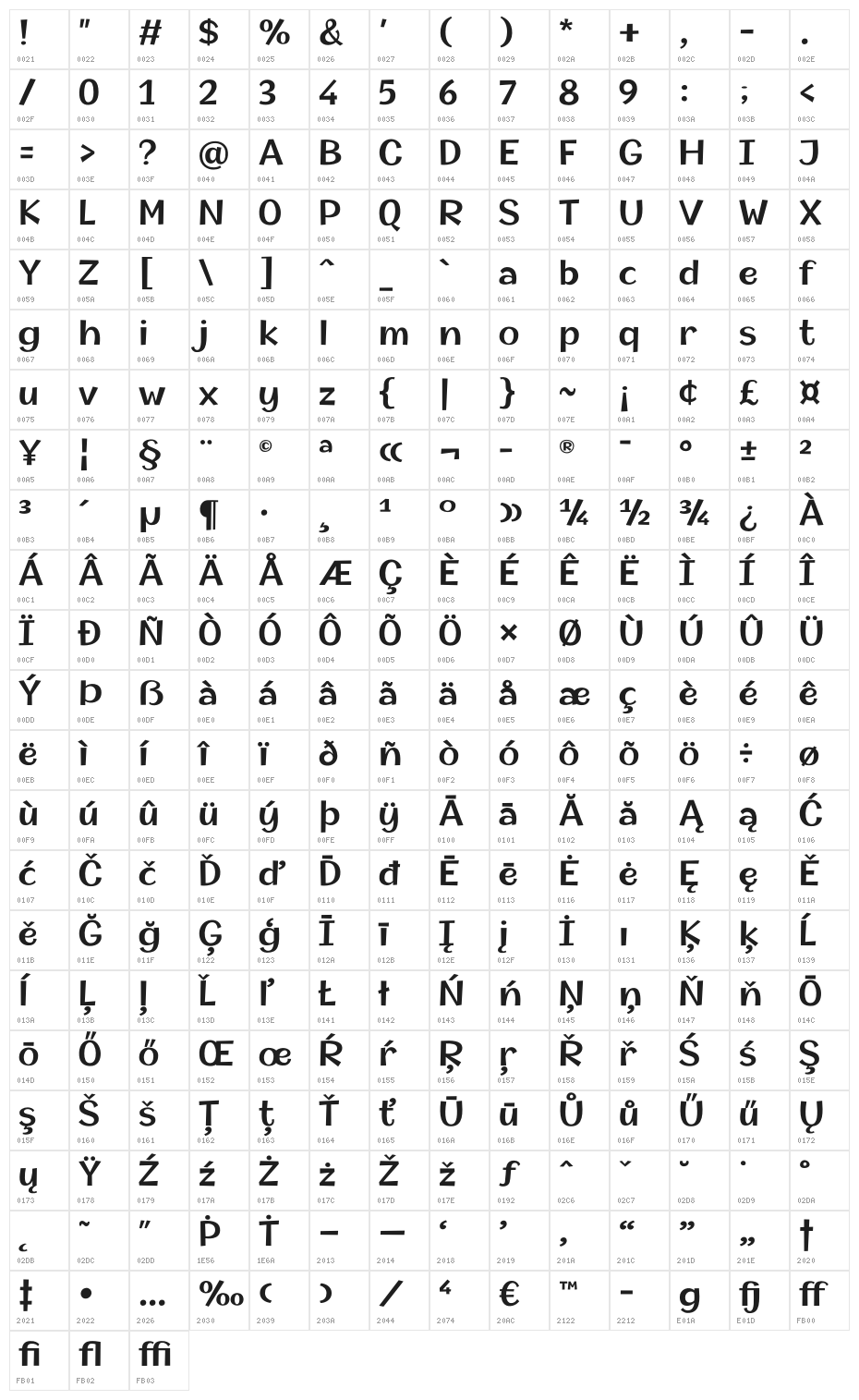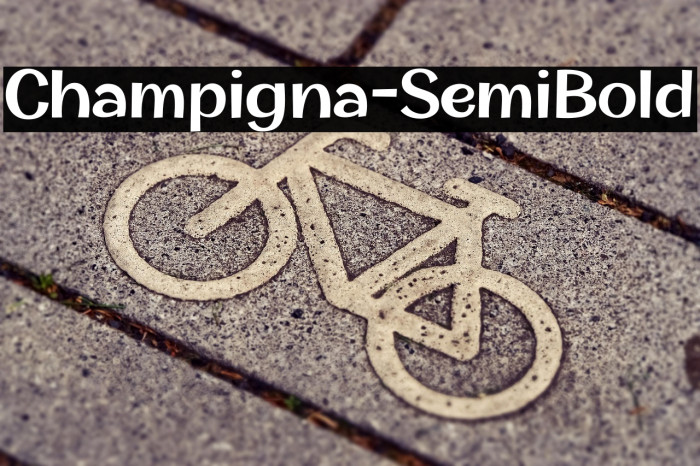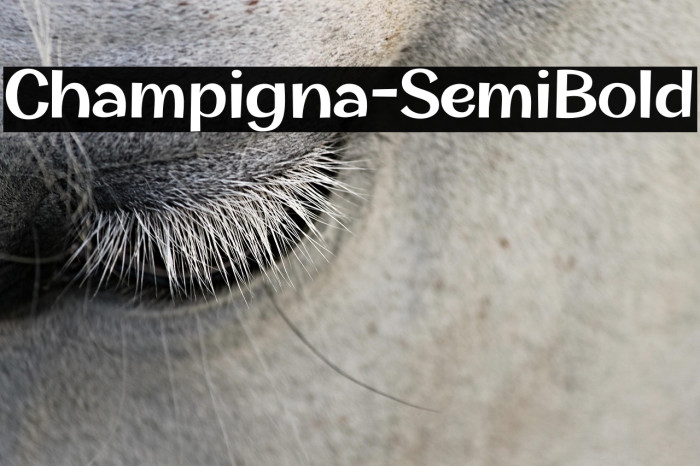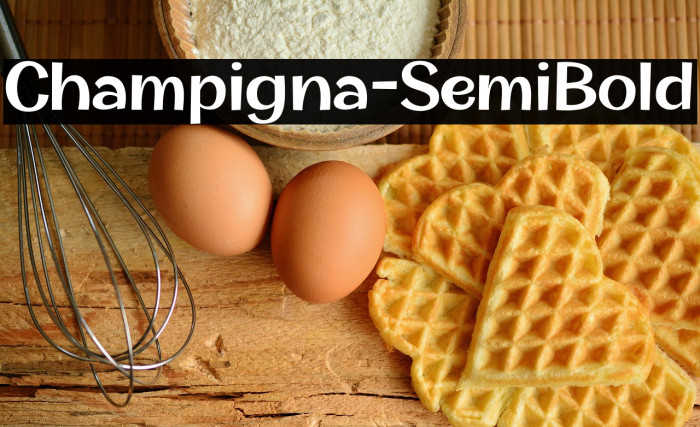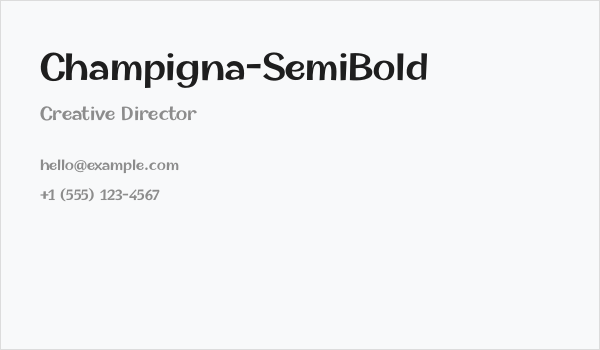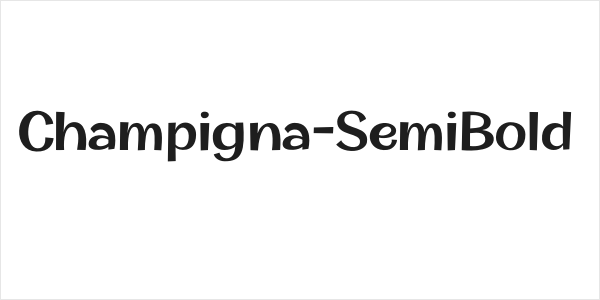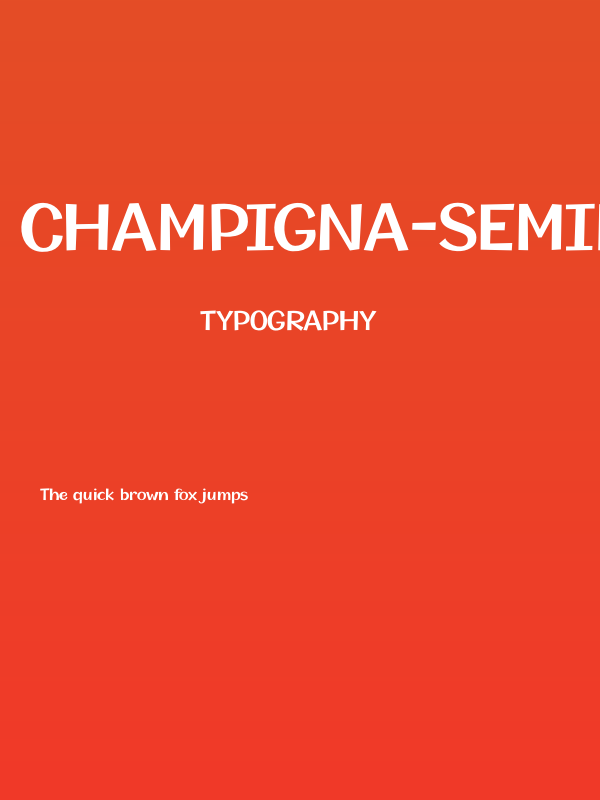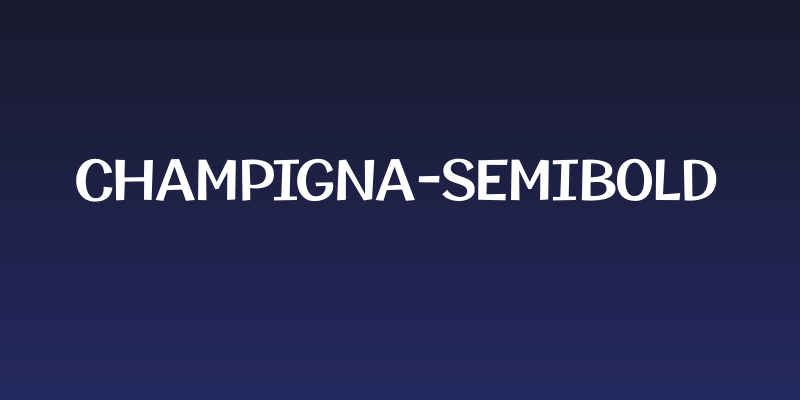
Champigna-SemiBold Font
Champigna-SemiBold Description
This font features a playful and dynamic style with a semi-bold weight, giving it a strong presence while maintaining a friendly and approachable appearance. The characters exhibit a slight curvature, adding a whimsical touch to the overall design. The uppercase letters are bold and slightly condensed, while the lowercase letters maintain a consistent flow with rounded edges. The numerals are clear and distinct, ensuring readability. Special characters are well-integrated, maintaining the font's cohesive look. This font's unique style makes it suitable for projects that require a touch of personality and flair.